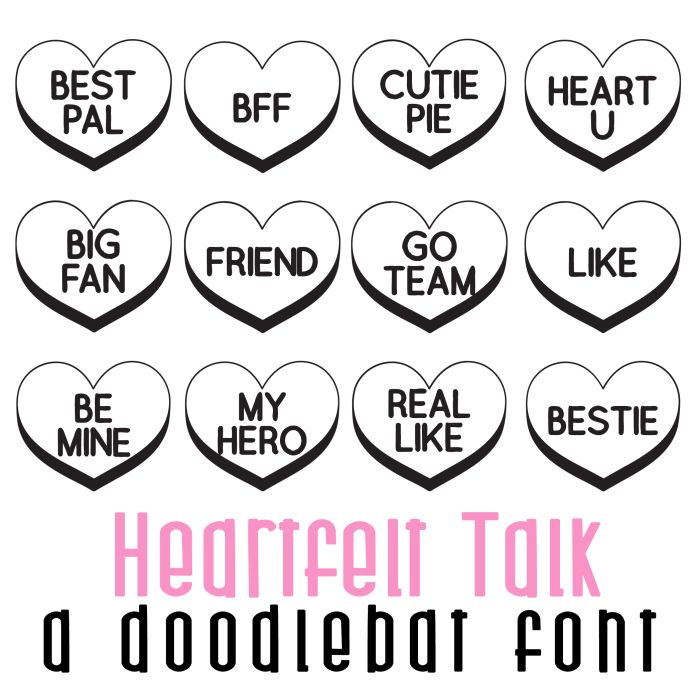
Heartfelt Talk Doodlebat Font
This doodlebat font features 26 conversation hearts! Perfect for classrooms, teachers, gifts, decor, scrap book pages, planner stickers and more!.